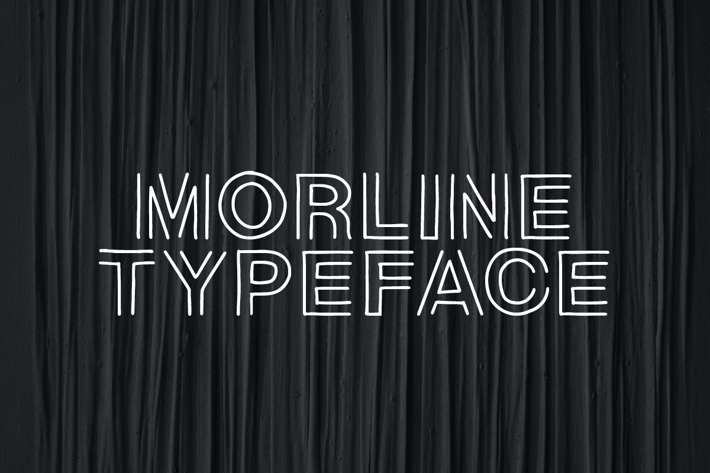
Morline Unique Outline Typeface
MartypeCo
Morline is a classic line typeface inspired by handmade lettering this, typeface is ready to use and suitable retro design like for Modern design, cover book, poster, flyer etc.
Morline Regular
Morline Slant